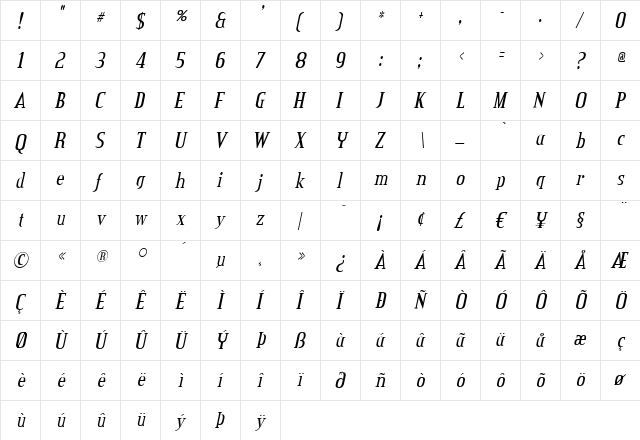
Credit Valley Italic
Design Context for Credit Valley Typeface
Credit Valley offers clean, dependable letterforms without strong stylistic allegiance, making it a practical choice for designers who need flexibility. The dynamic lean of this cut emphasises speed and emphasis in any layout.
Pro Tip: Use Credit Valley for emphasis, pull quotes, and subheadings where its slanted energy can add rhythm to the layout.